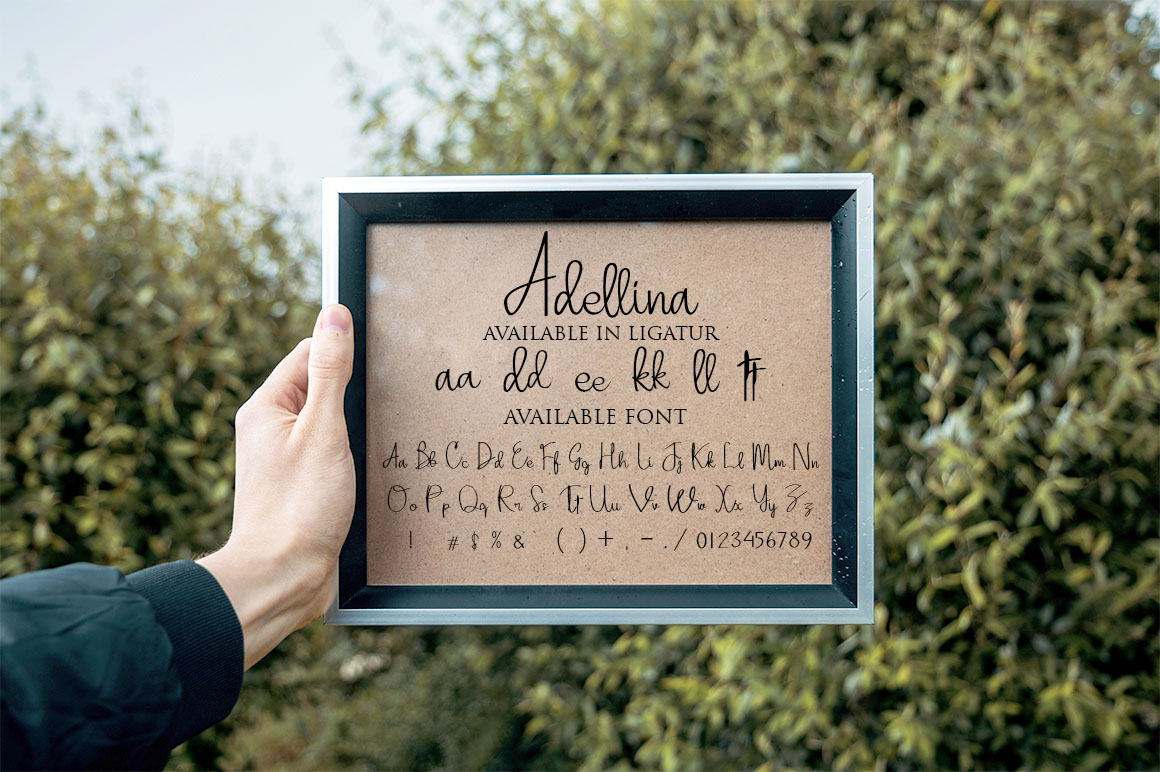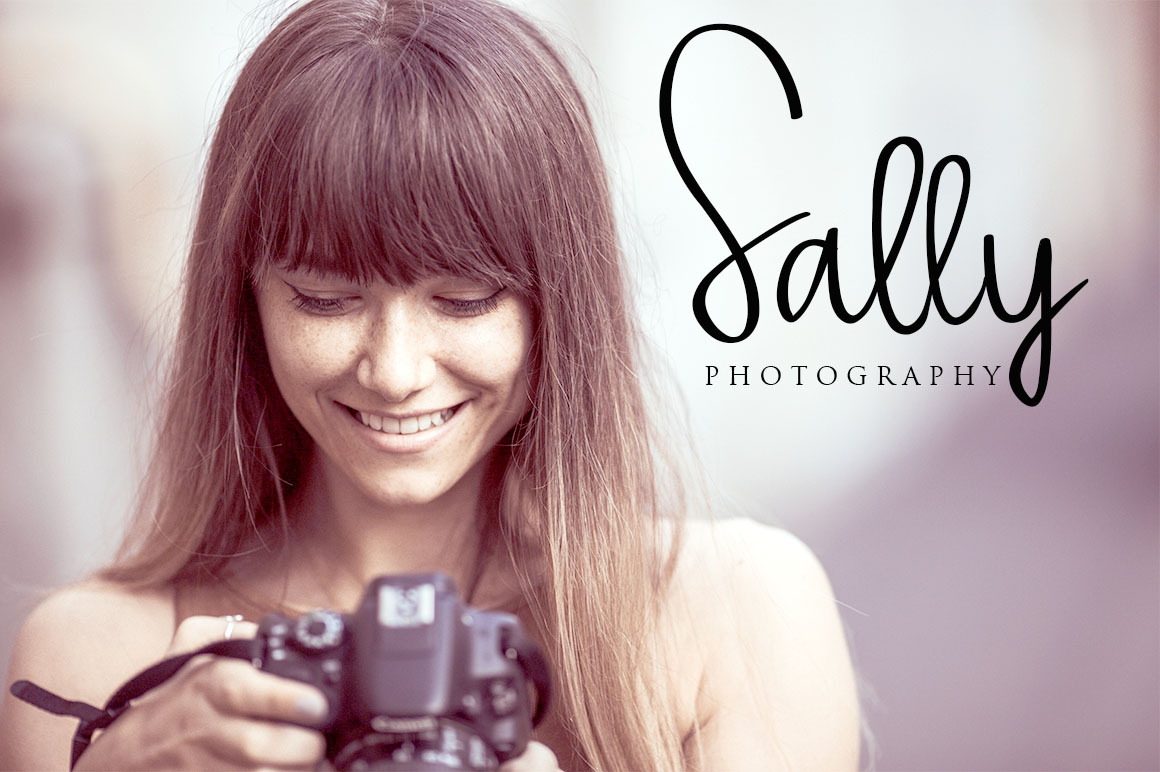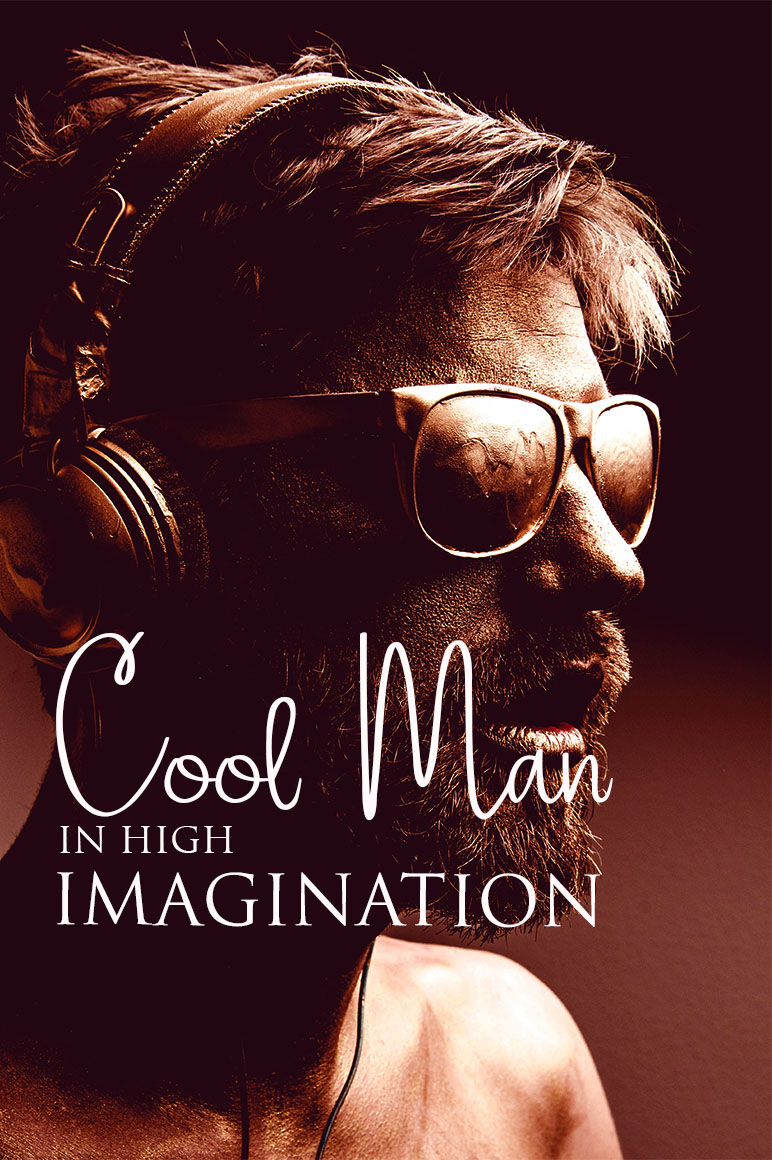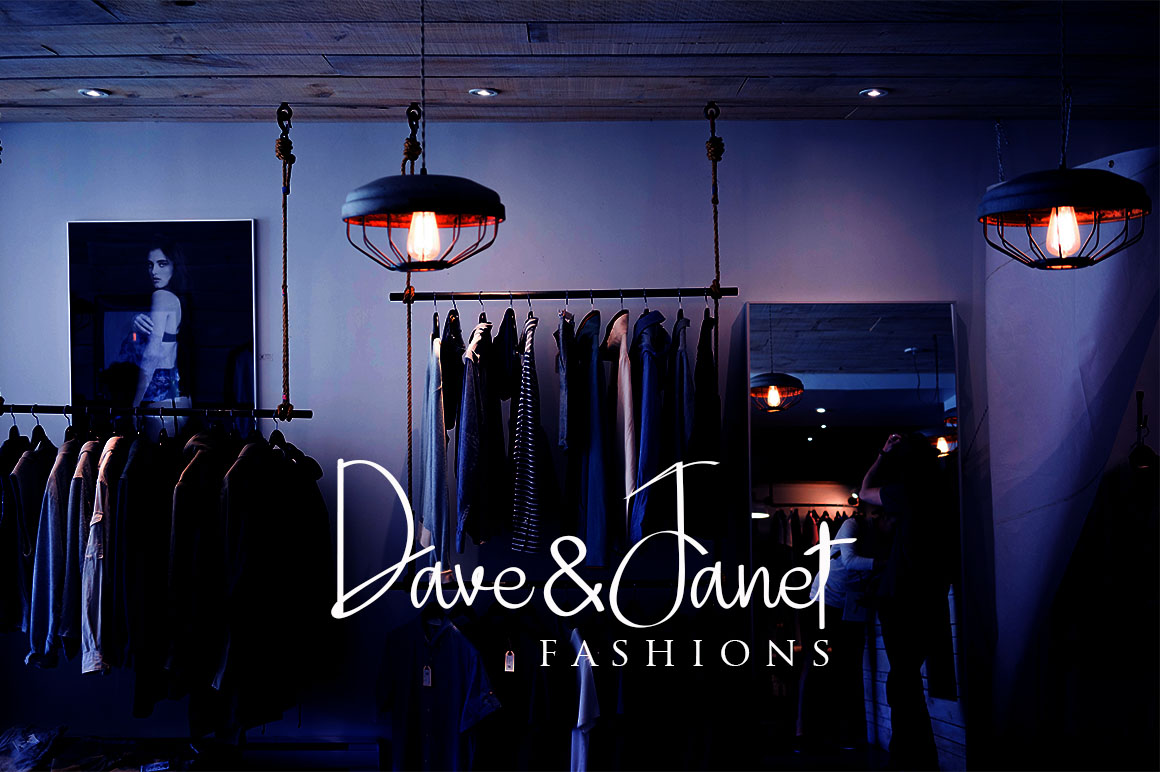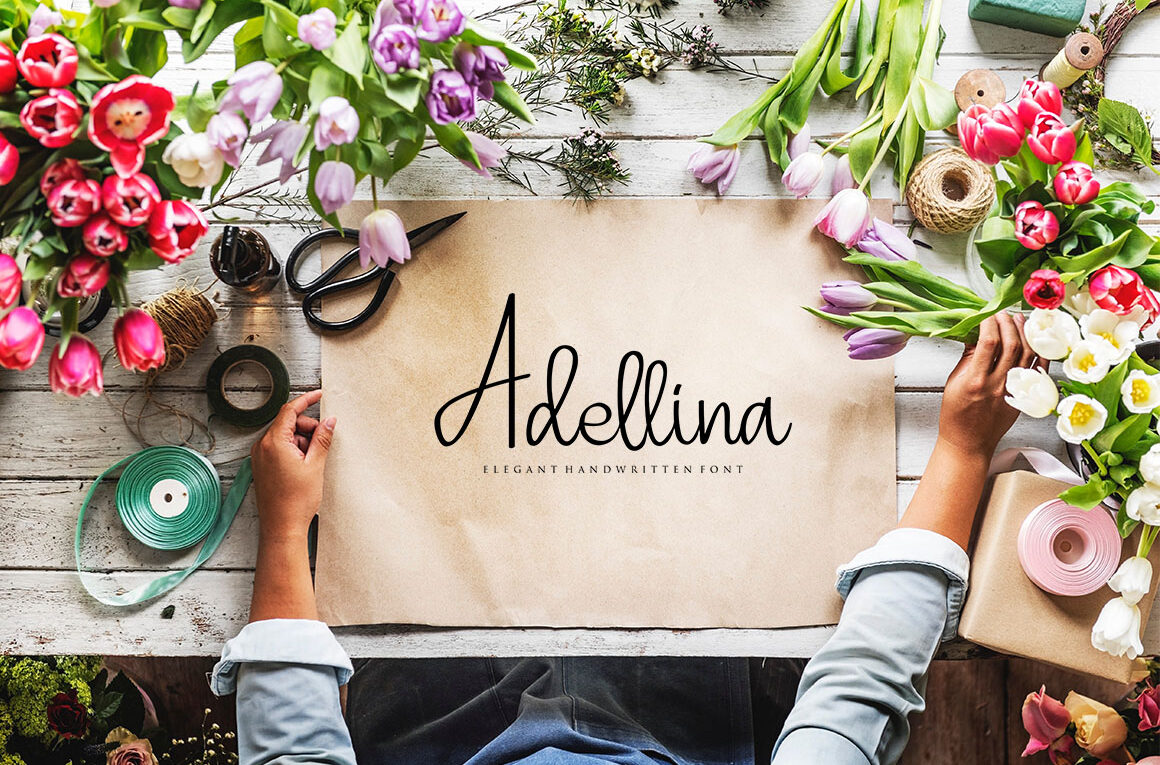
Introducing Adellina Font: Elevate Your Designs with Elegance and Simplicity
In the world of design, typography plays a crucial role in conveying the tone and aesthetic of a project. A well-chosen font can make all the difference in creating a lasting impression on your audience. If you’re looking for a font that exudes elegance, class, and simplicity, look no further than Adellina Font. In this article, we’ll delve into the features and benefits of Adellina, and explore how it can elevate your designs to the next level.
The Story Behind Adellina Font
Adellina is a stylish new font that was carefully crafted to provide designers with a versatile and sophisticated typeface. Its creators aimed to design a font that would not only convey a sense of luxury and refinement but also remain approachable and easy to read. The result is a font that strikes the perfect balance between elegance and simplicity, making it an ideal choice for a wide range of design projects.
Key Features of Adellina Font
So, what makes Adellina Font stand out from the crowd? Here are some of its key features:
- Elegant and Refined: Adellina’s sleek lines and curves give it a sophisticated look that’s perfect for high-end designs.
- Simple and Readable: Despite its luxurious feel, Adellina remains easy to read, making it suitable for body text and headings.
- Versatile: Adellina’s neutral design allows it to adapt seamlessly to various design contexts, from branding and advertising to packaging and digital media.
- Signature Style: With Adellina, you can add a touch of personality to your designs and create a unique visual identity.
Use Cases for Adellina Font
Adellina’s versatility makes it an excellent choice for a wide range of design projects. Here are some use cases to consider:
- Branding and Logo Design: Adellina’s elegant and refined design makes it perfect for creating logos, business cards, and brand guidelines.
- Advertising and Marketing: Use Adellina to create eye-catching headlines, slogans, and taglines that capture your audience’s attention.
- Packaging Design: Adellina’s simple and readable design makes it suitable for product labels, packaging, and instruction manuals.
- Digital Media: Adellina can be used for website headers, social media graphics, and digital advertising to create a cohesive brand image.
Tips for Using Adellina Font Effectively
To get the most out of Adellina Font, here are some tips to keep in mind:
- Pair it with Other Fonts: Combine Adellina with complementary fonts to create visual interest and hierarchy.
- Experiment with Colors: Adellina looks great in a range of colors, from bold and bright to subtle and muted.
- Play with Sizes: Use Adellina in different sizes to create visual contrast and emphasize key messages.
In conclusion, Adellina Font is a stylish and versatile typeface that can elevate your designs with its elegant and simple design. Whether you’re a designer, craftsperson, or DIY enthusiast, Adellina is an excellent choice for adding a touch of sophistication and class to your projects. With its wide range of use cases and tips for effective use, Adellina is sure to become a staple in your design toolkit.